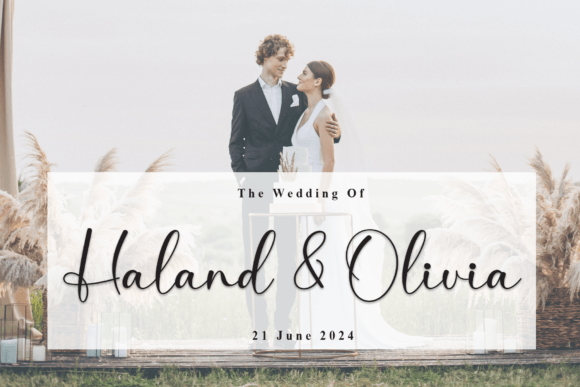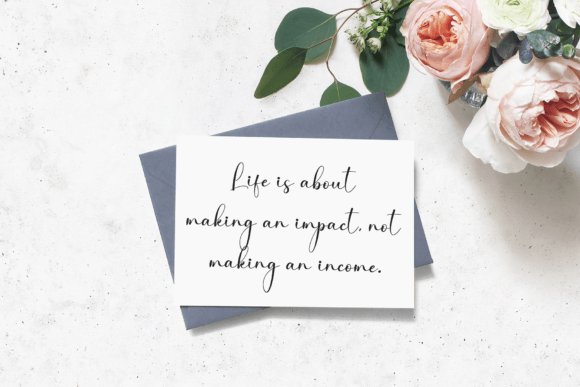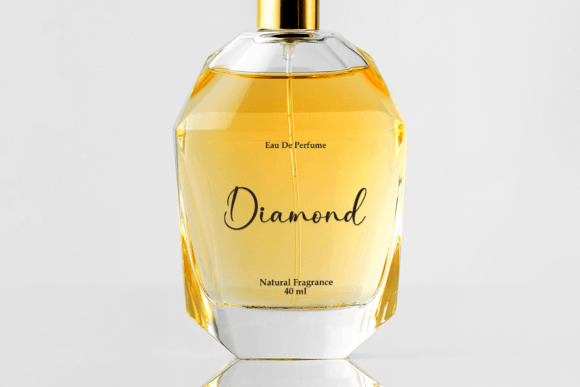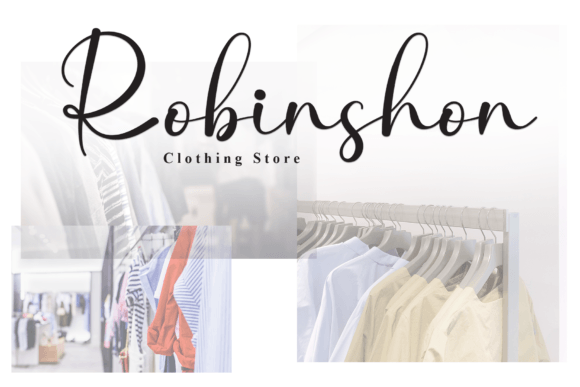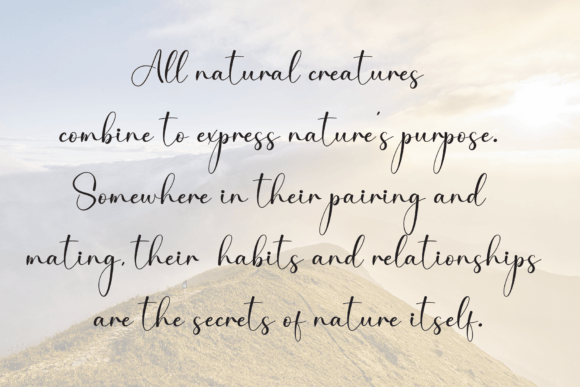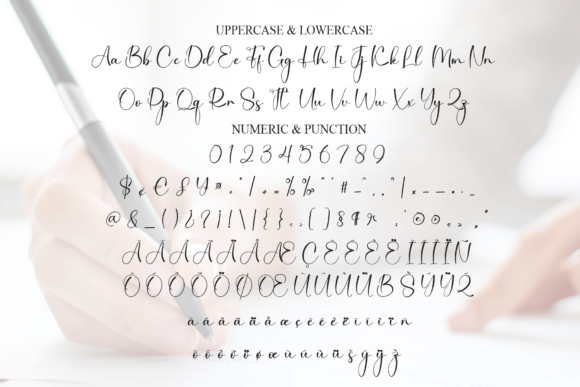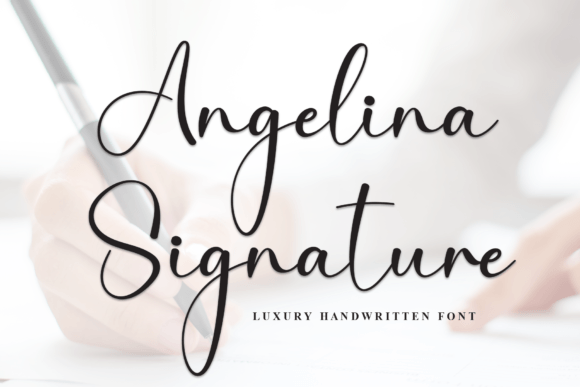
Introducing Angelina Signature Font: Elevate Your Designs with Elegant Cursive Writing
Are you a designer or crafter looking for a stylish and sophisticated font to add a personal touch to your creations? Look no further than Angelina Signature Font, a beautiful handwritten font that mimics elegant cursive writing. With its flowing lines and refined aesthetic, Angelina Signature is perfect for invitations, logos, and a wide range of design projects that require a touch of luxury and refinement.
What is Angelina Signature Font?
Angelina Signature Font is a carefully crafted handwritten font that boasts a unique and stylish appearance. Its elegant cursive writing style makes it an excellent choice for designers and crafters who want to add a personal and sophisticated touch to their work. Whether you’re creating wedding invitations, branding materials, or social media graphics, Angelina Signature Font is sure to impress.
Key Features of Angelina Signature Font
- Handwritten elegance: Angelina Signature Font features a beautiful, handwritten aesthetic that adds a touch of warmth and personality to any design.
- Elegant cursive writing: The font’s cursive style gives it a refined and sophisticated look that’s perfect for high-end designs.
- Versatile: Angelina Signature Font can be used for a wide range of design projects, from invitations and logos to social media graphics and more.
- Easy to read: Despite its elegant appearance, Angelina Signature Font remains easy to read, making it a great choice for body text and headings.
Uses for Angelina Signature Font
Angelina Signature Font is an incredibly versatile font that can be used for a wide range of design projects. Here are some ideas to get you started:
- Wedding invitations: Add a touch of elegance and sophistication to your wedding invitations with Angelina Signature Font.
- Logos and branding: Use Angelina Signature Font to create a unique and memorable logo for your business or brand.
- Social media graphics: Elevate your social media graphics with Angelina Signature Font, perfect for creating eye-catching posts and stories.
- Stationery and paper goods: Add a personal touch to your stationery, notebooks, and other paper goods with Angelina Signature Font.
Tips for Using Angelina Signature Font
To get the most out of Angelina Signature Font, here are some tips to keep in mind:
- Use it sparingly: While Angelina Signature Font is beautiful, it can be overpowering if used excessively. Use it sparingly to add a touch of elegance to your designs.
- Pair it with a sans-serif font: Pairing Angelina Signature Font with a sans-serif font can create a beautiful contrast that adds visual interest to your designs.
- Experiment with colors: Angelina Signature Font looks stunning in a range of colors, from classic black and white to bold and bright hues.
Angelina Signature Font is a stunning handwritten font that adds a touch of elegance and sophistication to any design. With its flowing lines, refined aesthetic, and versatility, it’s perfect for designers and crafters looking to elevate their creations. Whether you’re creating invitations, logos, or social media graphics, Angelina Signature Font is sure to impress. So why wait? Download Angelina Signature Font today and start adding a personal touch to your designs!